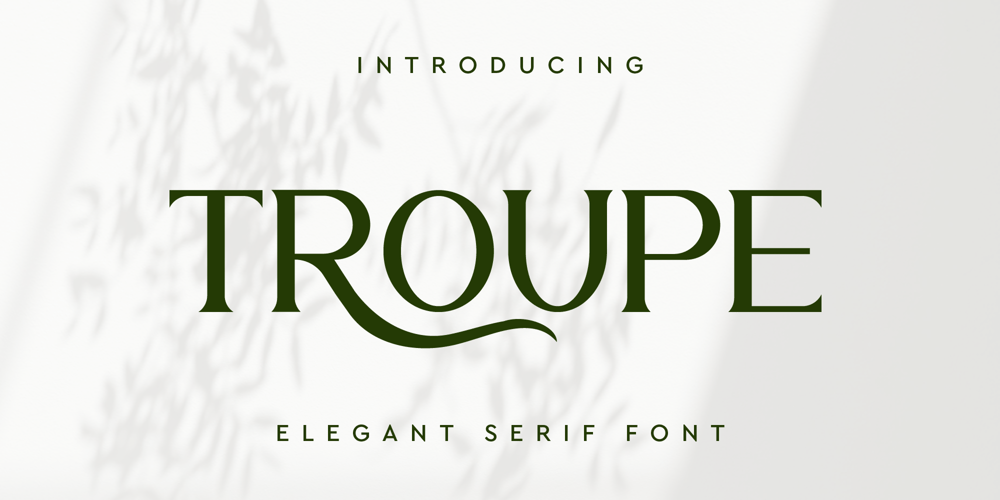
Troupe Font Family was designed by Iwan Alwan and published by Artiveko. Troupe contains 2 styles and family package options. Troupe Serif, a creation by Iwan Alwan, epitomizing elegance and versatility. With its plethora of alternates and meticulously crafted ligatures, Troupe is more than just a font; it’s an experience. Designed to cater to the discerning tastes of the fashion and retail industry, especially those seeking a feminine touch, Troupe exudes sophistication and charm.Its multilingual support ensures seamless communication across borders, making it a global choice for designers and brands alike. Whether adorning a magazine cover, gracing a product label, or enhancing a website’s aesthetic, Troupe elevates any project with its graceful serifs and refined character.Troupe Serif is not just a typeface; it’s a statement of style, a testament to the artistry of its creator. Imbued with a timeless appeal, it stands as a beacon of creativity in the realm of typography. Embrace the allure of Troupe and let your designs speak volumes with every stroke.